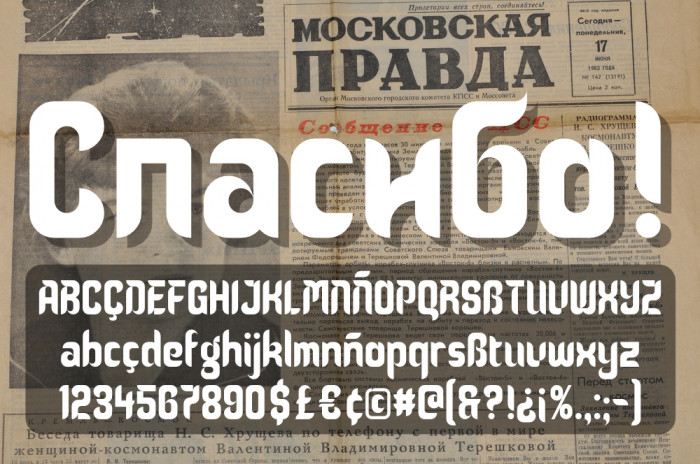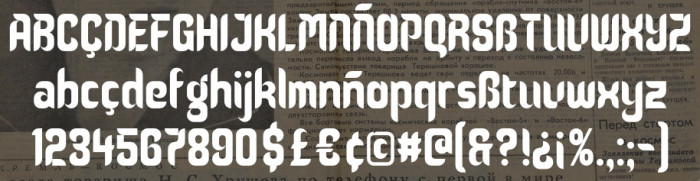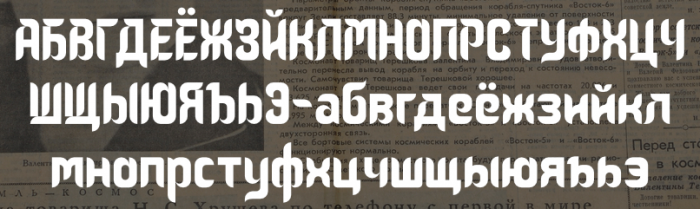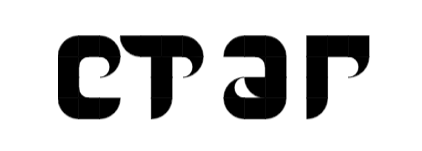
very unusual font style for Cyrillic, unexpected. There is something oriental about it and it looks like it was painted with a brush. Cyrillic is more rigid and straight in structure than Latin. In such a font И usually looks like this U (and п like n), your version is also beautiful. Noticed that you misspelled the Cyrillic tag (two l's must be)
Пожалуйста - this word in Russian is a mandatory response to gratitude. We all don't know a lot and learn from each other - your fonts helped me a lot too. The Cyrillic alphabet mostly with diagonal and horizontal lines is so contradictory even for me, letters like З and И should be combined in one font - even V and S are more compatible with each other. And these are just the most difficult letters to create in fontsruct (and the reason why I was not able to do Cyrillic in zchriftart), so I always started creating a font from them - this is a tip for beginners. You made an alternative y, combined with б - this is interesting, you can also make an alternative с (on picture). I would also add that such ь ы ь в look strange, but я could have an element from o and ю.
And if you make a serif for З, you can do it for Э.